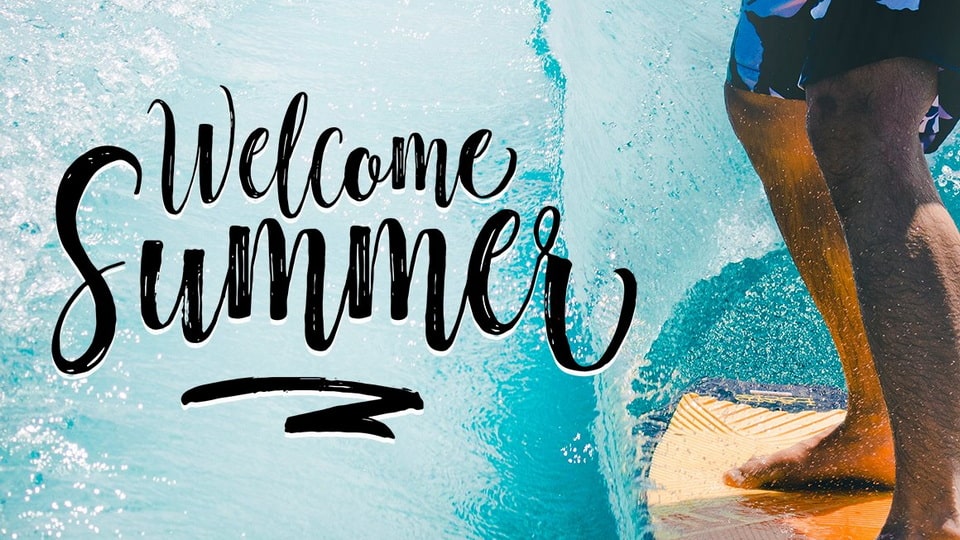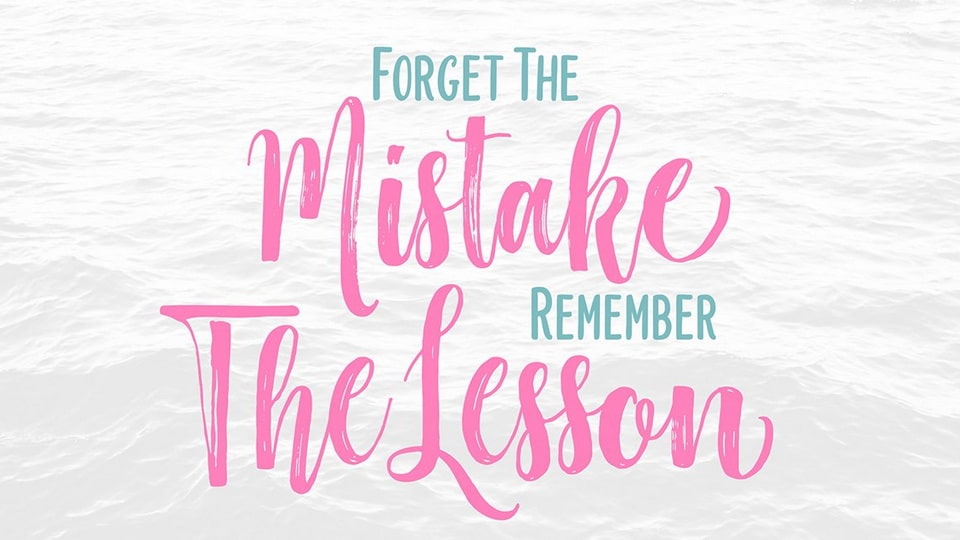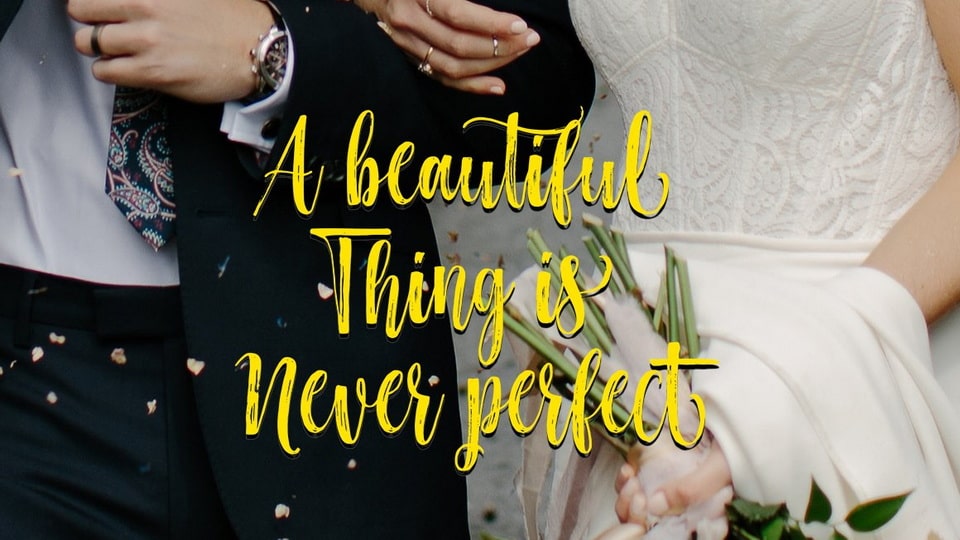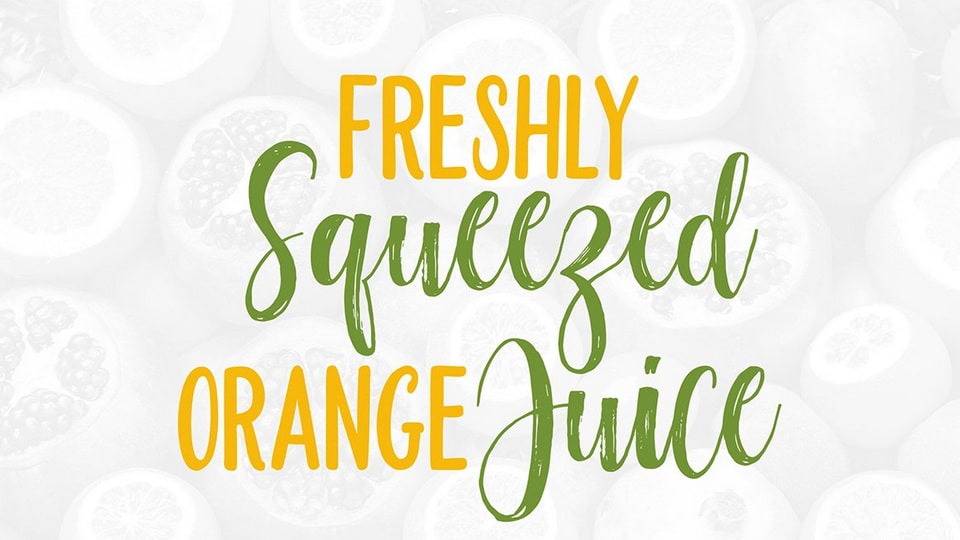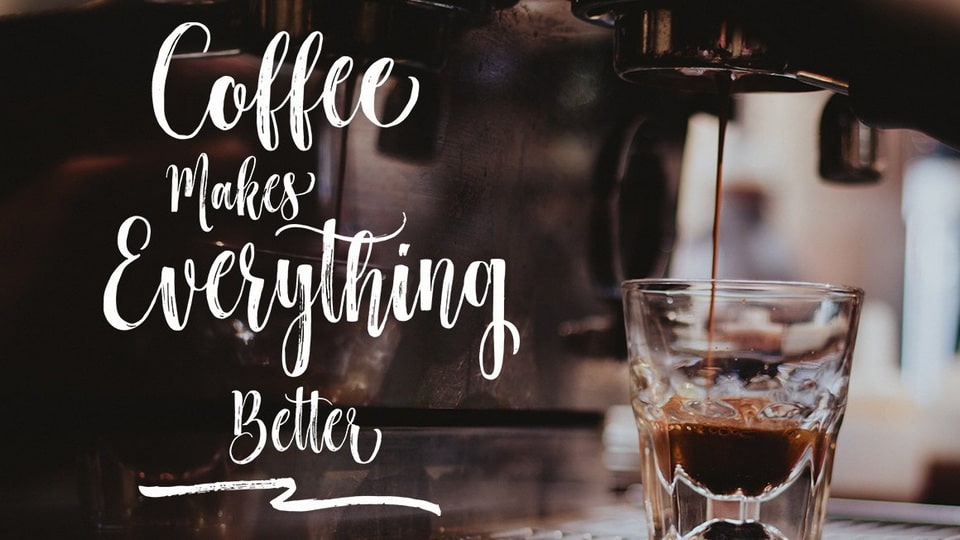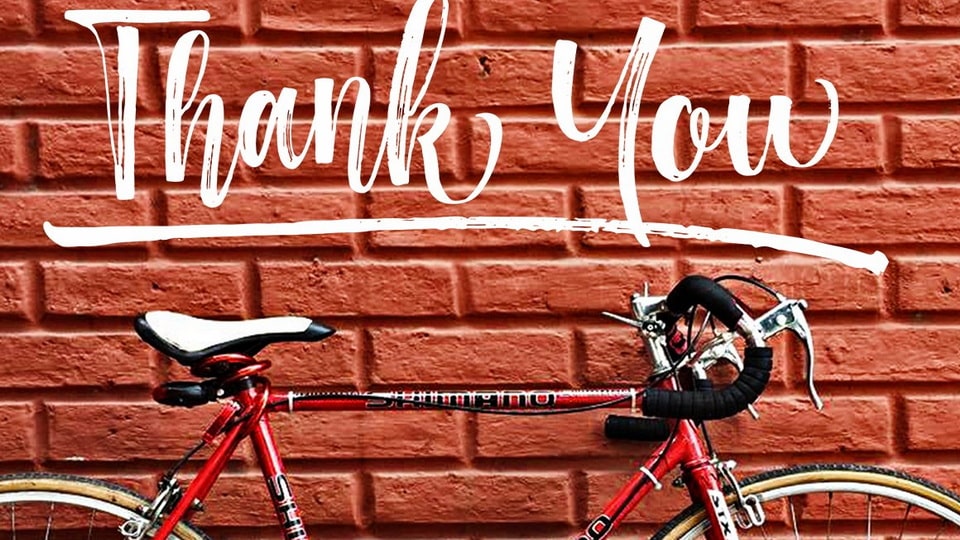
Hottemp is a cool and modern handwritten font duo (brush script and display). Whether you’re using it for crafts, digital design, presentations, or making greeting cards, this font has the potential to become your favorite go-to font, no matter the occasion!